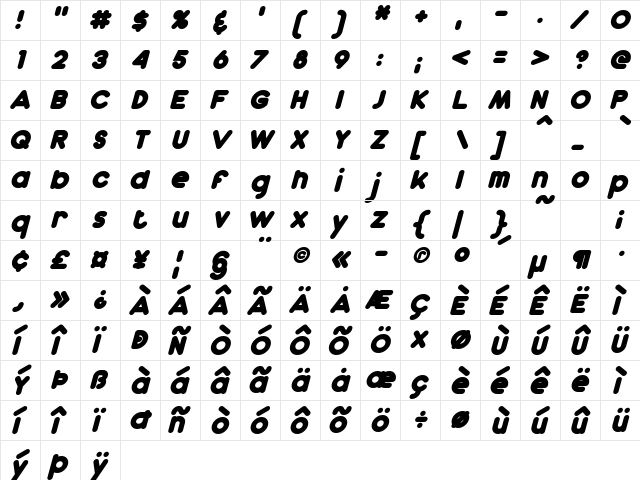
Dunkin Italic
Design Context for Dunkin Typeface
Dunkin is a composed and adaptable typeface that performs quietly and consistently across a wide range of design contexts. Its italic angle brings a sense of urgency and motion to the letterforms.
Pro Tip: Try Dunkin for annotation and caption copy alongside an upright companion — the contrast in angle creates a dynamic but ordered typographic system.